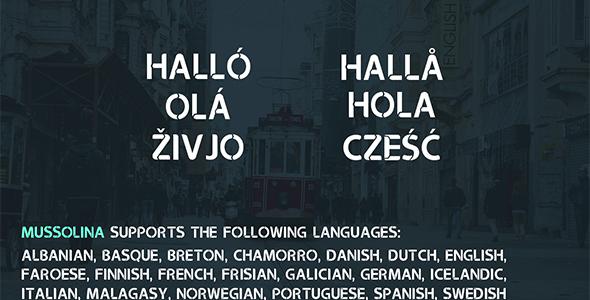
Mussolina Font
An elegant modern font inspired from distance, direction, path, space and time. Adventure themed. It comes with BOLD look and unique characteristics with high quality details. Visually attractive with great readability. Great for titles and subtext. Font file includes: Regular, Italic, Gradient, Alternative Version .OTF, .WOFF